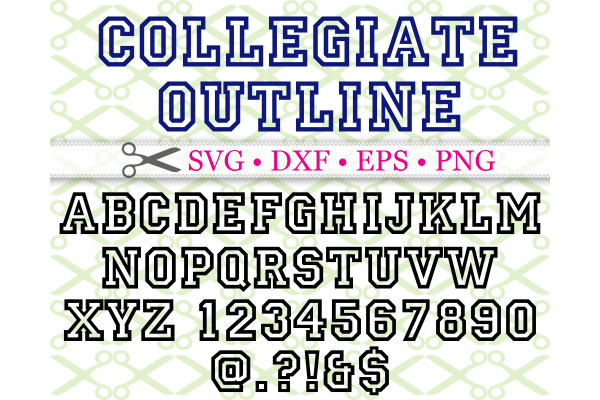
COLLEGIATE OUTLINE FONT SVG FILES, File Formats SVG, DXF, EPS & PNG. Upper case letters & numbers & symbols as shown in ad picture. A very popular font for school and sports projects!